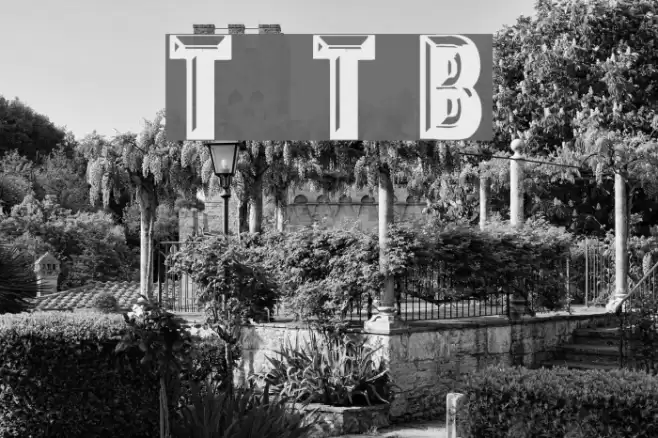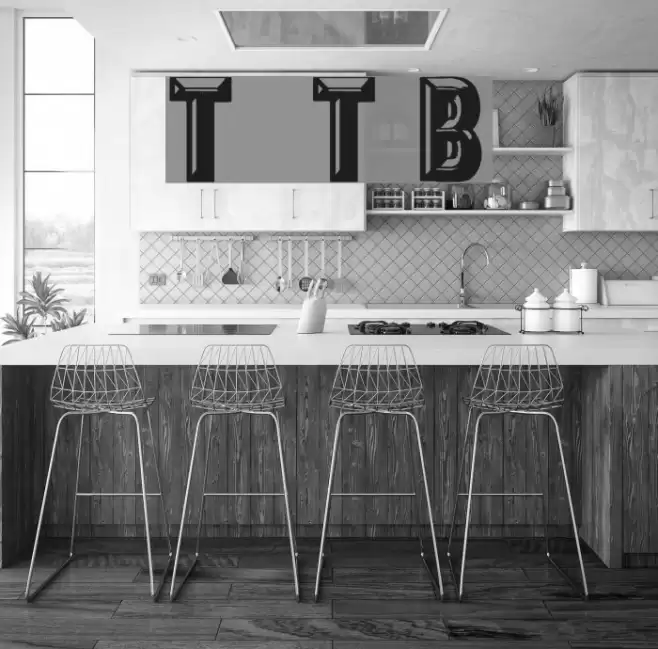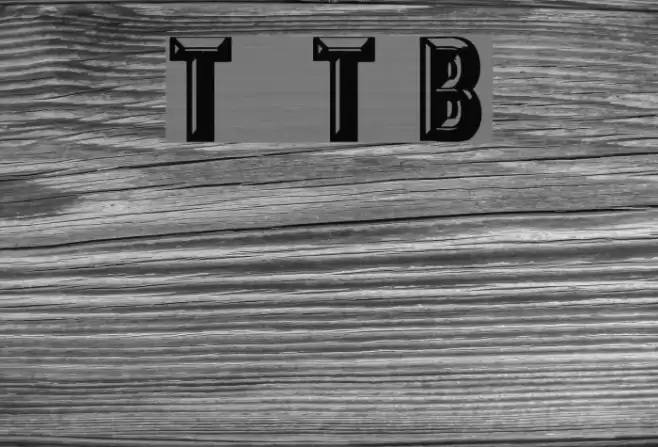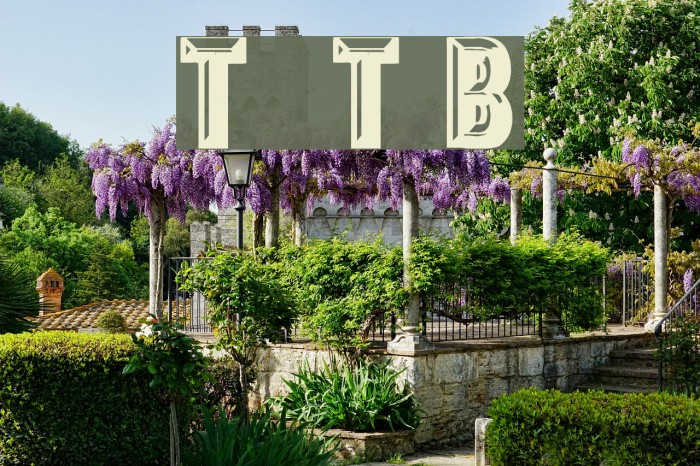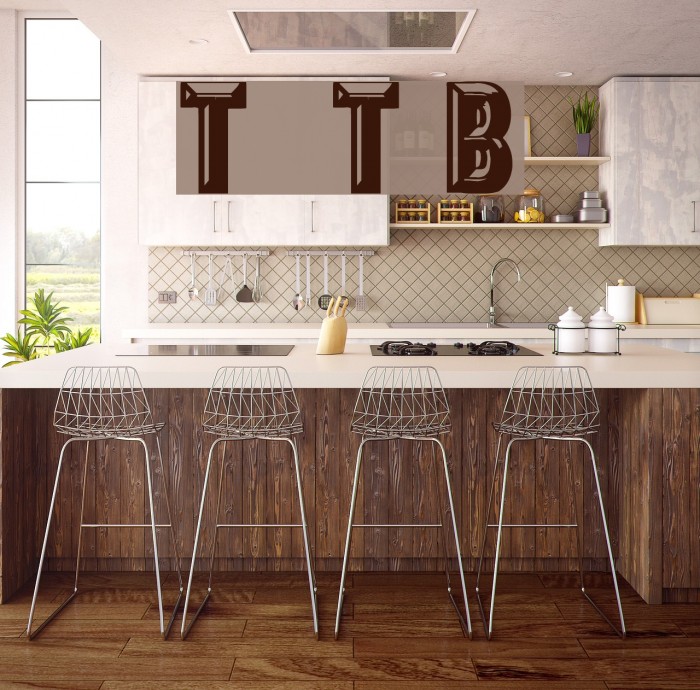
Tejaratchi Th Bold Font
Tejaratchi Th Bold Description
This bold and striking font features a unique, decorative style with a three-dimensional effect. The letters are uppercase and exhibit a shadowed, layered appearance that adds depth and visual interest. Each character is meticulously crafted with sharp edges and a solid, robust structure, making it ideal for attention-grabbing designs. The font's boldness is emphasized by its thick strokes and high contrast between the filled and shadowed areas, creating a dynamic and impactful look. Its distinctive style is perfect for projects that require a strong visual presence.
A bold, decorative font with a three-dimensional, shadowed effect from Uncategorized fonts.
- Proposed Projects: Ideal for posters, headlines, logos, and any design requiring a bold statement.